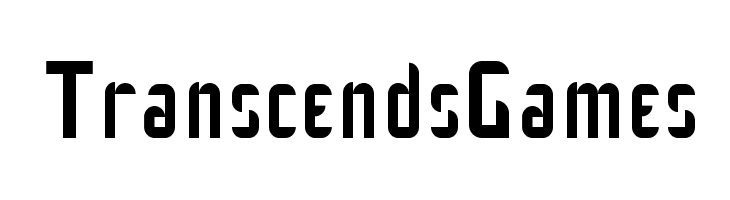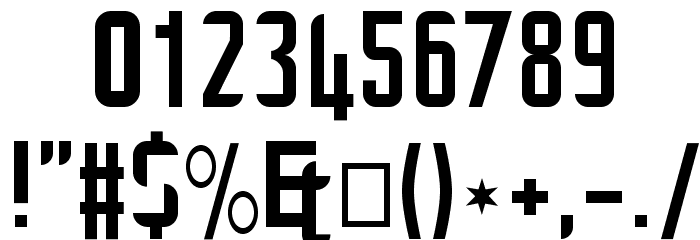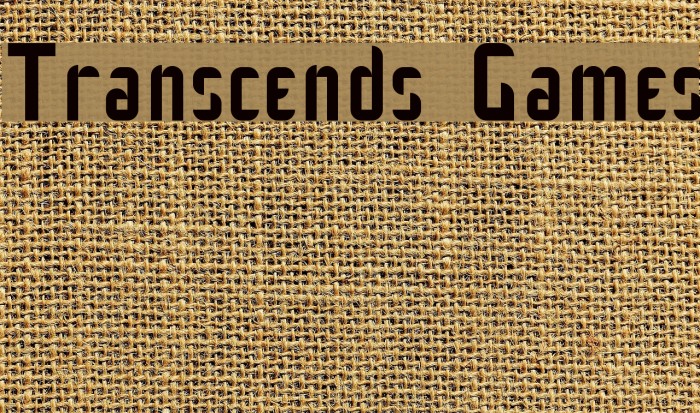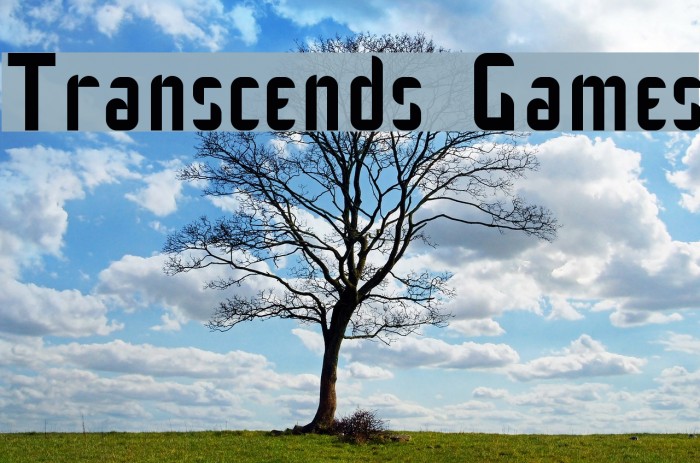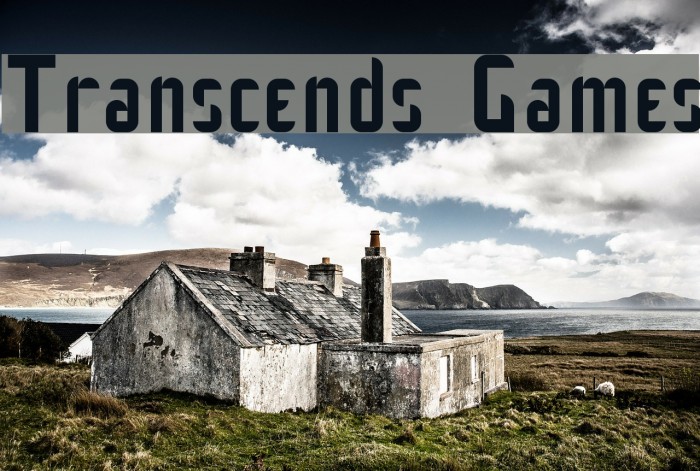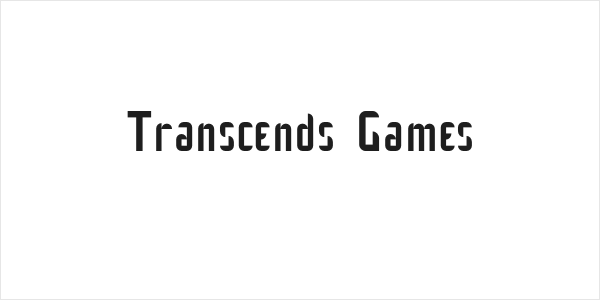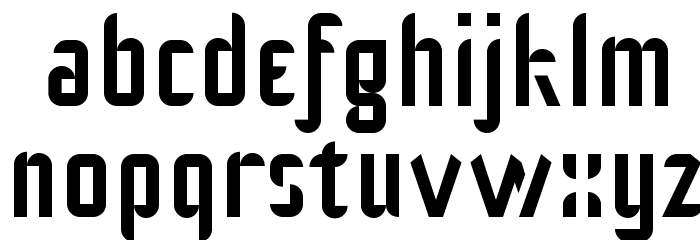
Transcends Games Font
Transcends Games Description
This font features a bold and modern design with a geometric and slightly futuristic aesthetic. The uppercase letters are characterized by sharp angles and clean lines, giving them a strong presence. The lowercase letters maintain a similar style, with a consistent stroke width that enhances readability. The numerals are distinct and align well with the overall design, making them suitable for digital displays. Special characters are designed with the same attention to detail, ensuring uniformity across all glyphs. The font's style is versatile, making it ideal for projects that require a contemporary and tech-savvy look.
| Use Case | Headlines, Logos, Digital displays |
| Proposed Projects | Ideal for tech branding, digital interfaces, video game graphics, and modern advertising. |